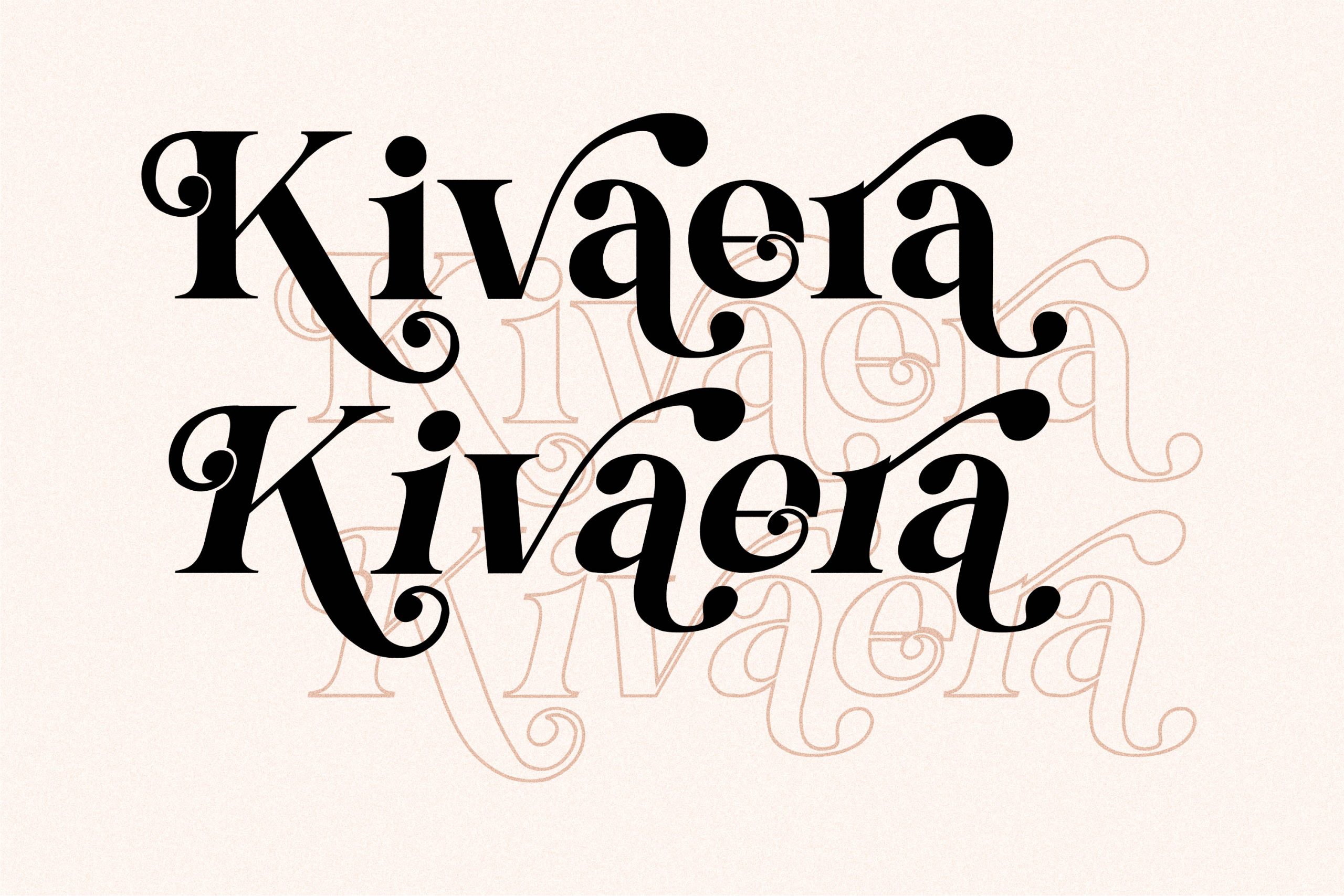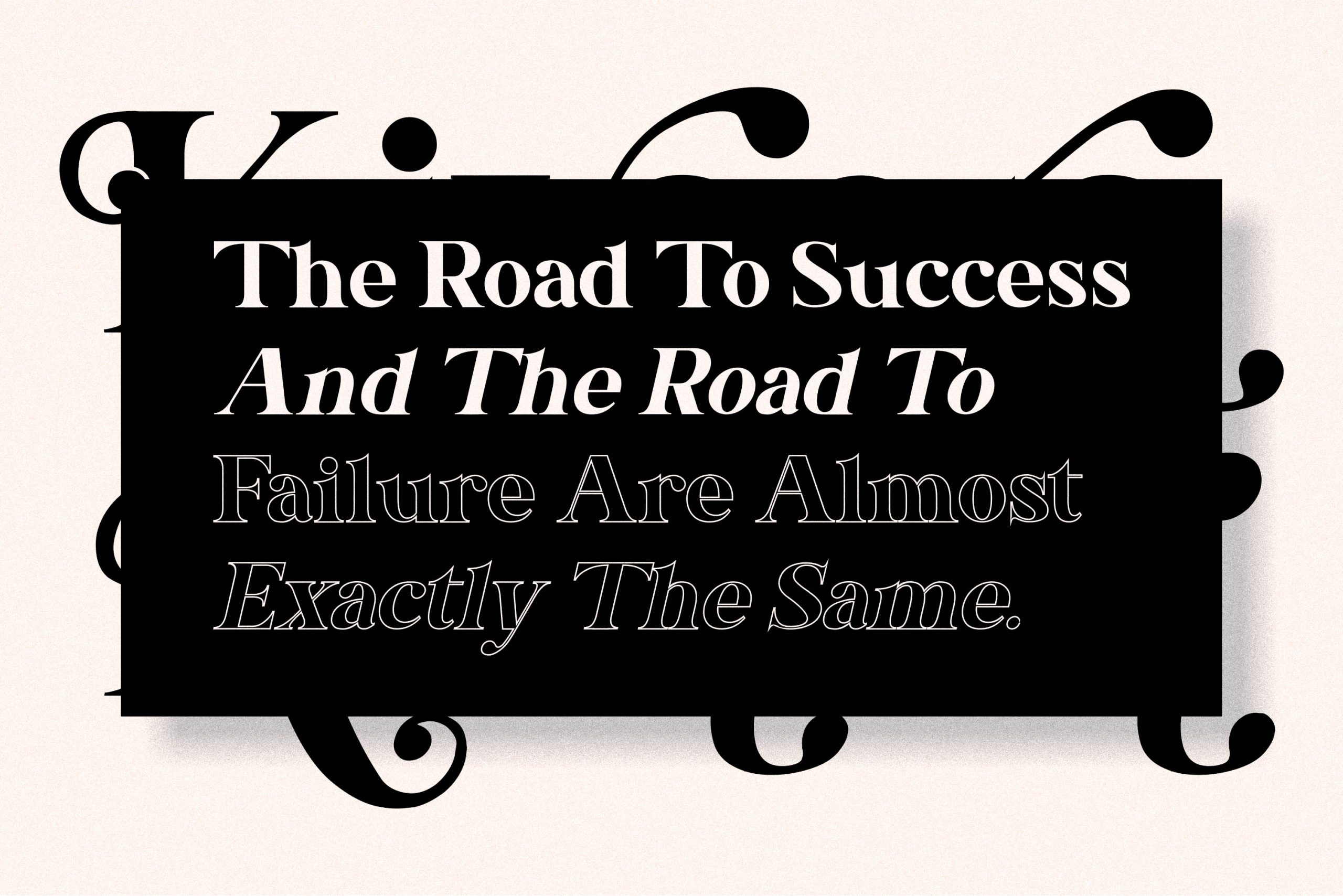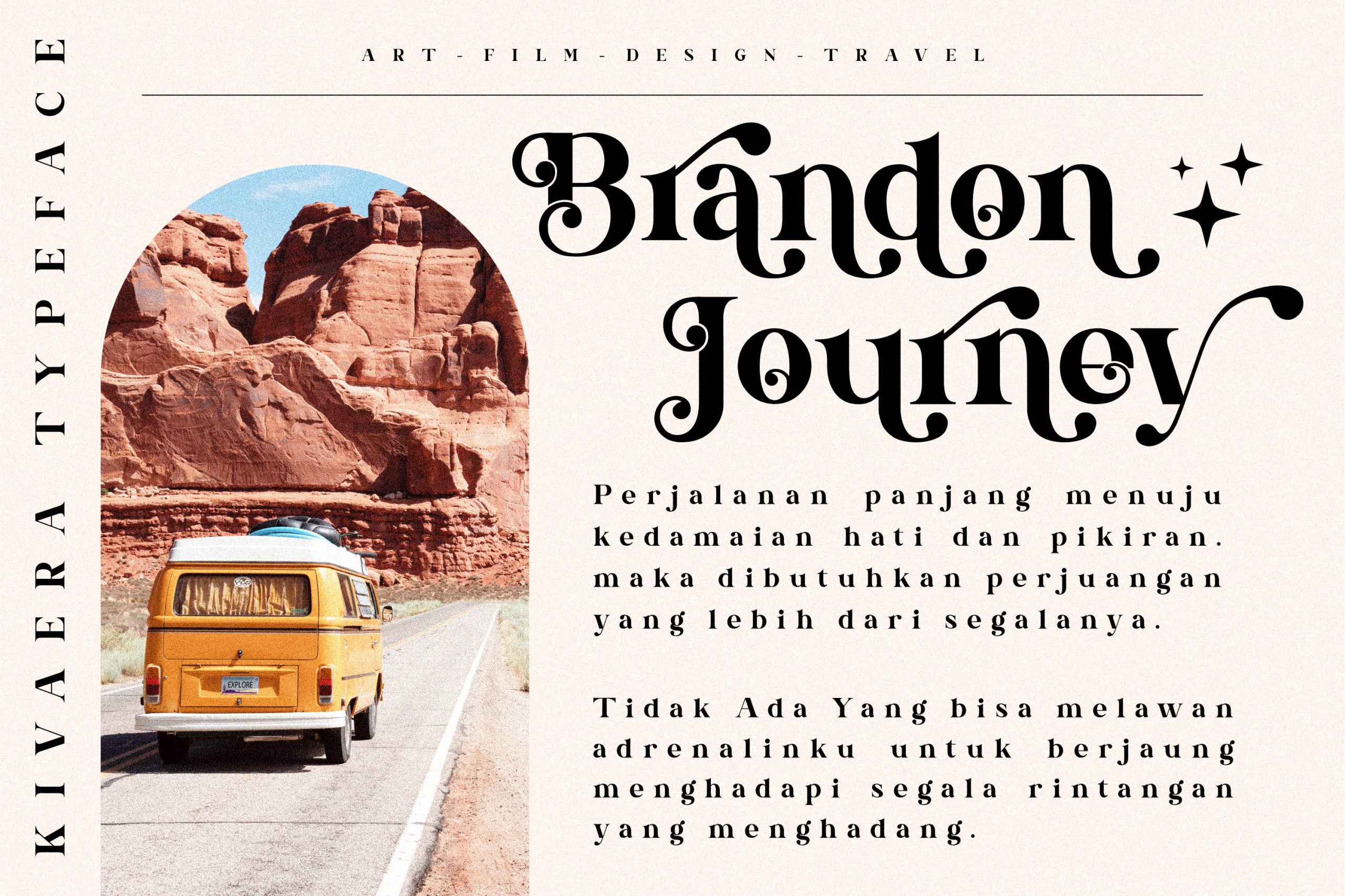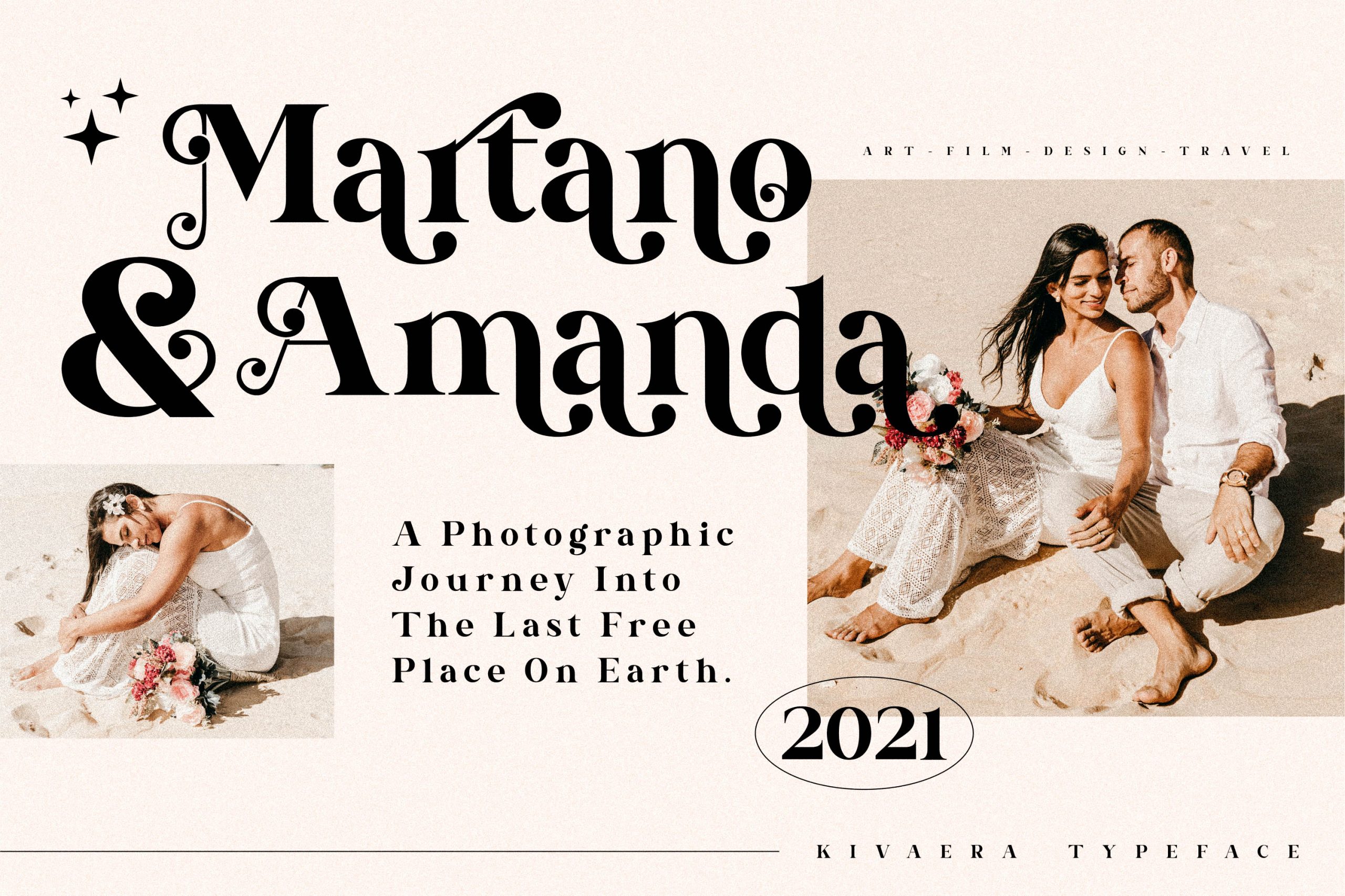
Kivaera Modern Serif Font
Proudly present Kivaera Modern Serif Font, created by Storytype, A serif modern and classic typeface that has own unique style & modern look. This typeface is perfect for an elegant & luxury logo, book or movie title design, fashion brand, magazine, clothes, lettering, quotes, and so much more.